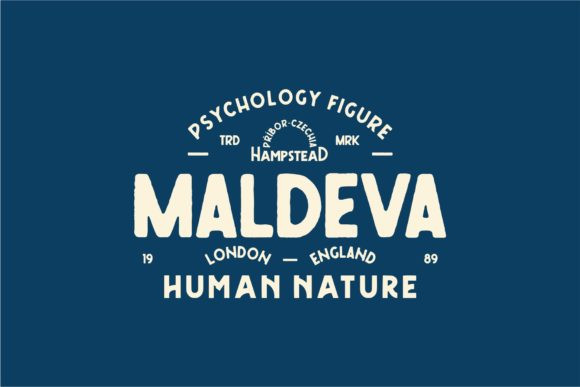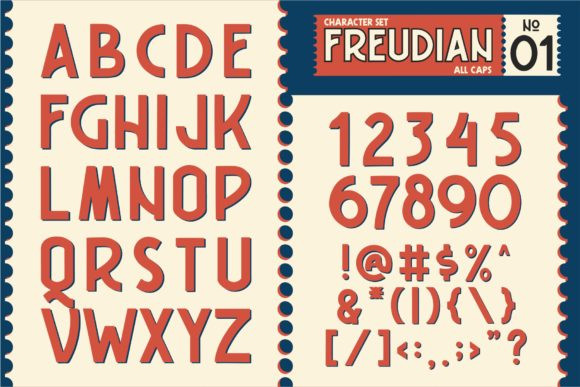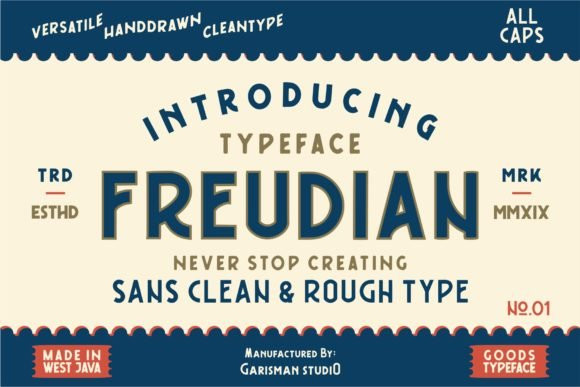
Freudian Font
The Freudian is a vintage typeface. It has a classic handmade look which is perfect for branding materials, t-shirts, prints, business cards, logos, posters, and much more!